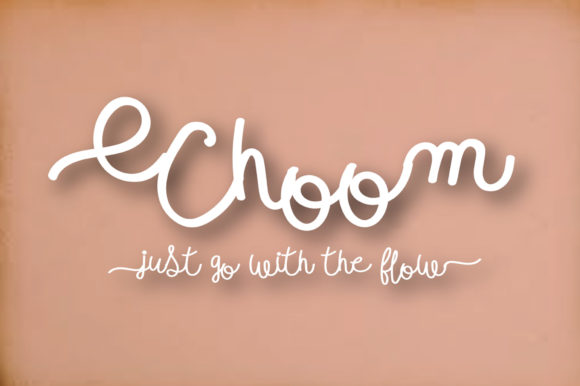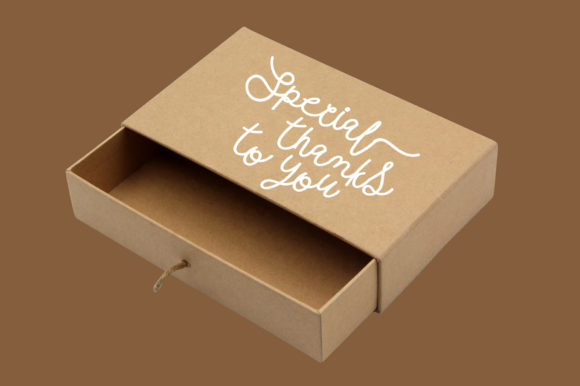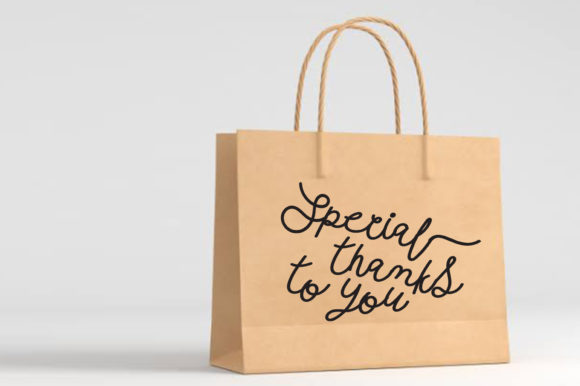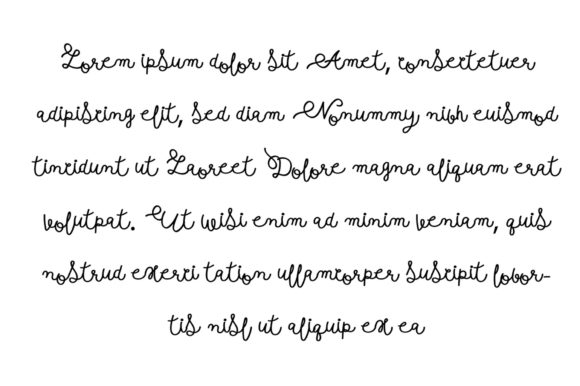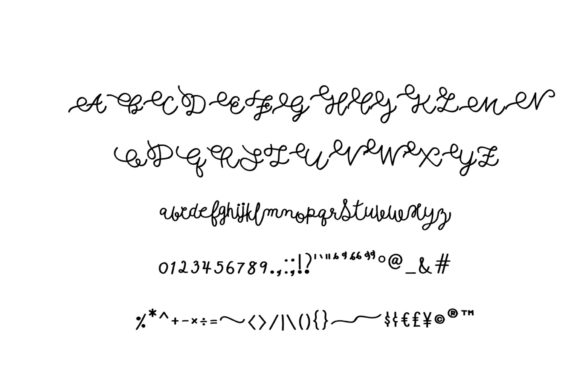
Choom Font
About Choom Font
Choom is a sweet and friendly handwritten font. Its natural and unique style makes it incredibly fitting to a large pool of designs. The only limit is your imagination!